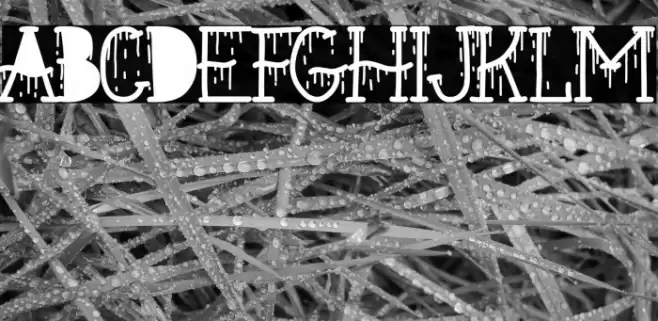
La Nueva Vieja Escuela Font
La Nueva Vieja Escuela Description
This font features a bold and dramatic style with a dripping effect that gives it a unique, edgy appearance. The uppercase and lowercase letters are designed with a consistent dripping motif, creating a sense of movement and fluidity. The numerals and special characters also incorporate this distinctive style, making the font ideal for eye-catching designs. The overall look is both artistic and slightly chaotic, perfect for projects that require a bold statement.
A bold, dripping font with a unique, edgy style from Uncategorized fonts.
- Proposed Projects: Ideal for horror-themed posters, Halloween invitations, edgy branding, and music album covers.